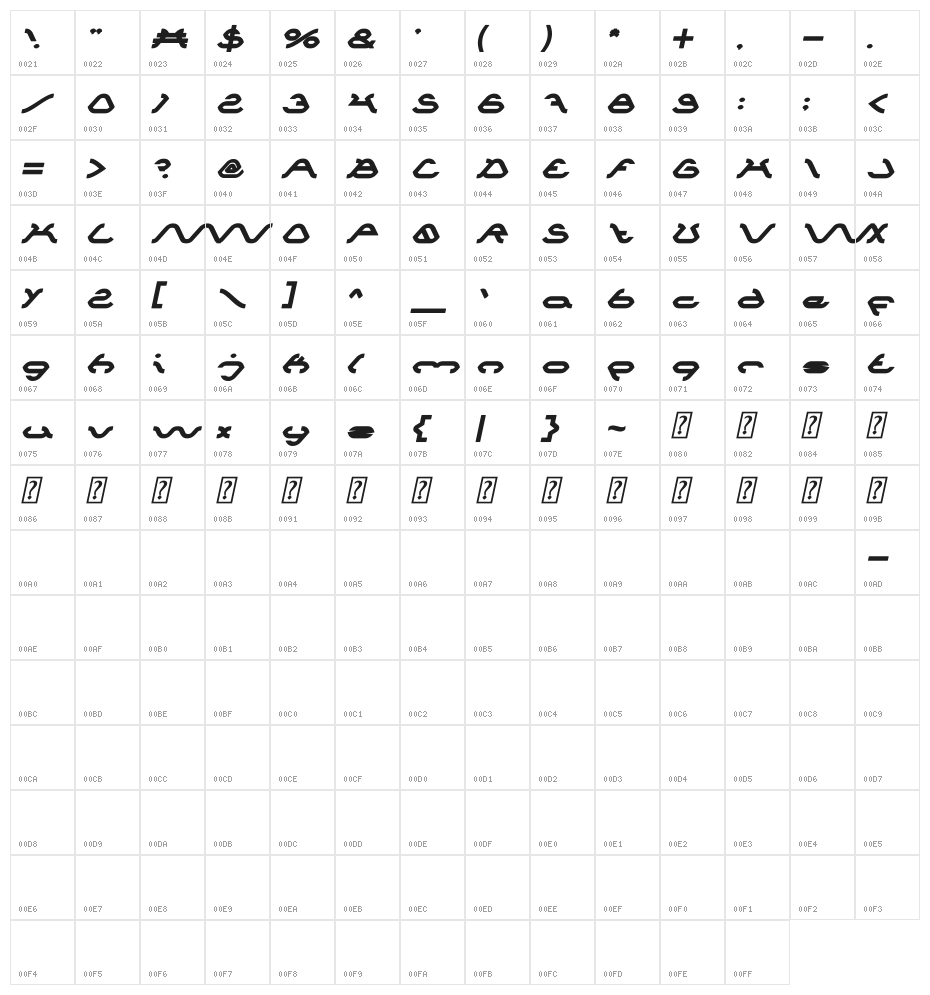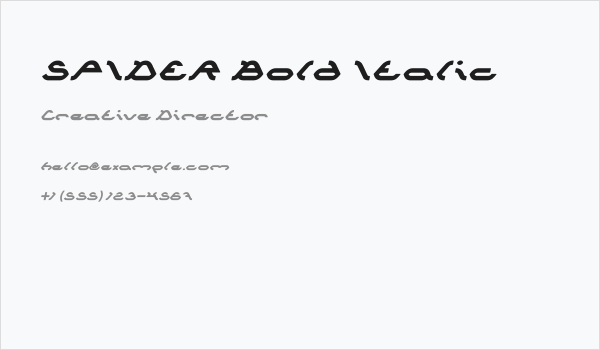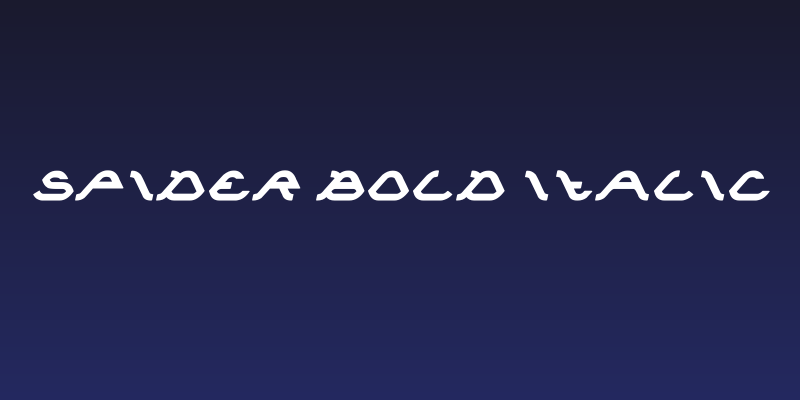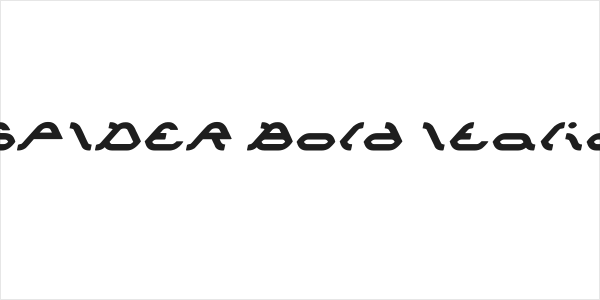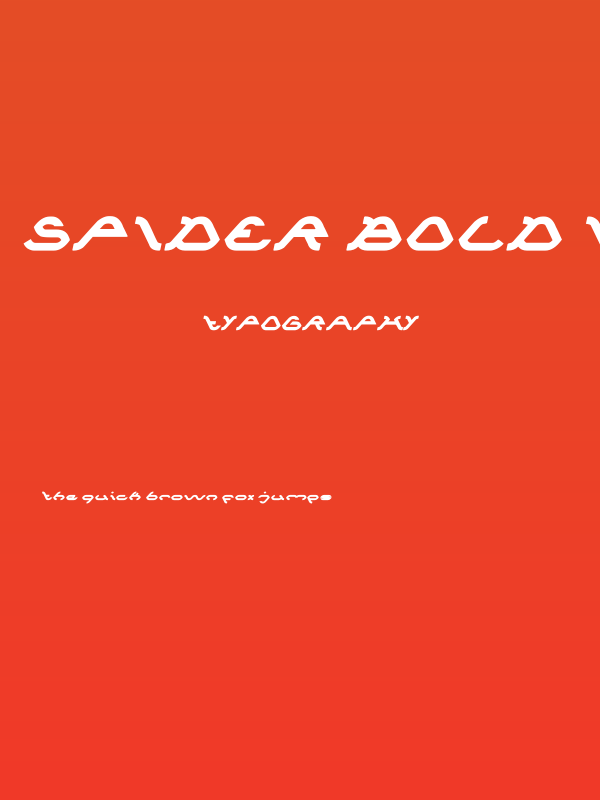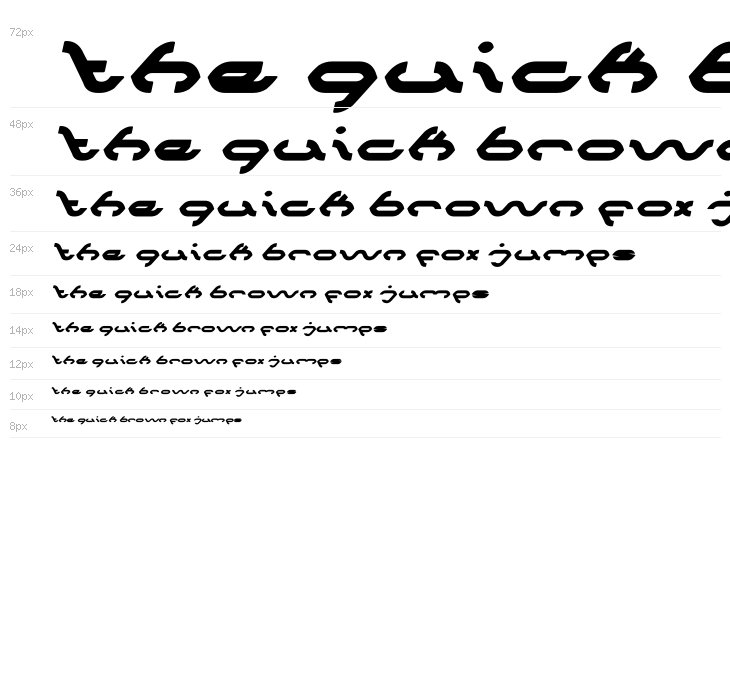
SPIDER Bold Italic Font
SPIDER Bold Italic Description
This font exhibits a bold and italicized style with a futuristic and dynamic appearance. The characters are uniquely designed with a slanted orientation, giving them a sense of movement and energy. The strokes are thick and consistent, contributing to a strong visual impact. The uppercase and lowercase letters maintain a cohesive style, while the numerals and special characters are crafted to match the overall aesthetic. The font's design is modern and slightly abstract, making it suitable for creative and innovative projects.
| Proposed Projects | Ideal for sci-fi themed designs, video game titles, tech branding, and modern posters. |